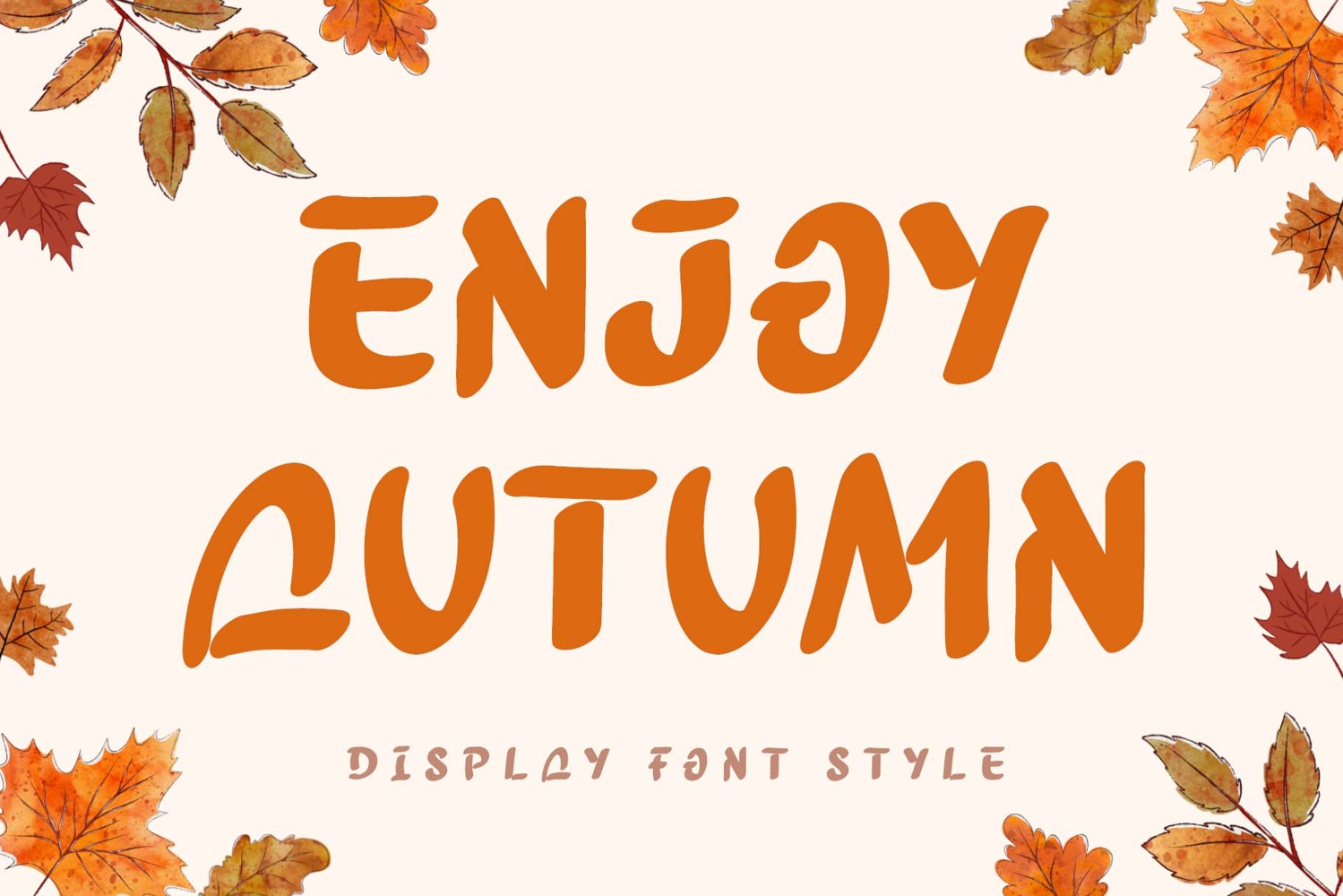
Enjoy Autumn
"Enjoy Autumn" is an elegant and unique display font. It features uppercase and lowercase letters, numerals, punctuation, and multilingual support. It's perfect for banners, posters, branding, stickers, posters, autumn, Halloween, Christmas, winter, spring, summer, Valentine's Day, logos, photography, holidays, t-shirts, comics, mockups, and more.